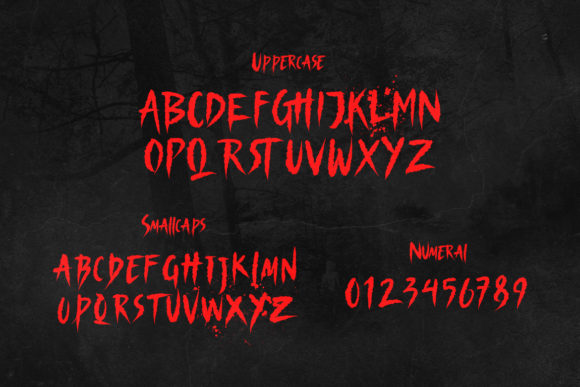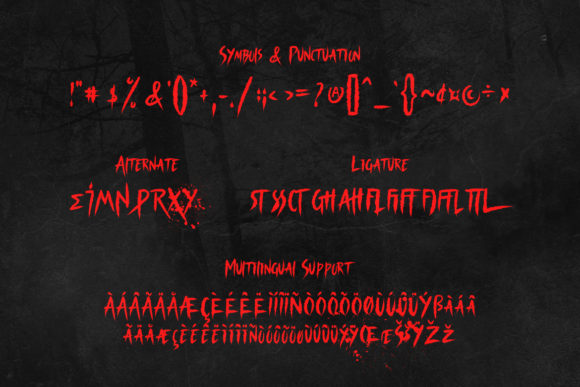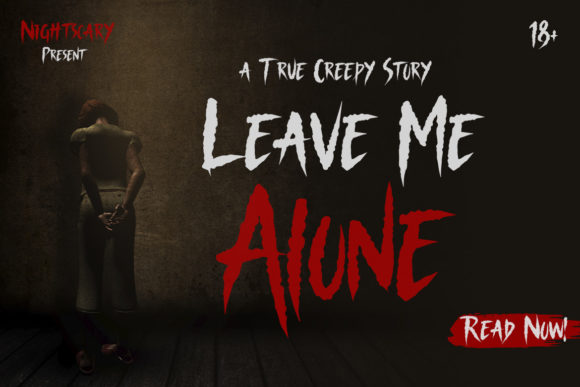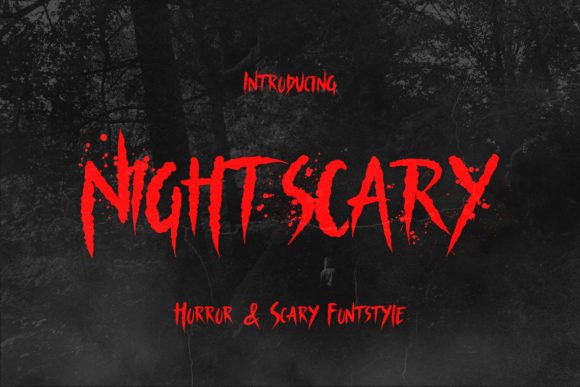
Introduction to Nightscary Font
Nightscary is a cool, brushed and creepy looking display font.
Add this spooky font to your most inspired Halloween creations, and notice how they come to life .
Key Features of Nightscary Font
Why Choose Nightscary Font?
Nightscary Font offers exceptional quality and versatility, making it a valuable addition to your design toolkit. Whether you’re creating for personal projects or commercial use, Nightscary Font delivers professional results.